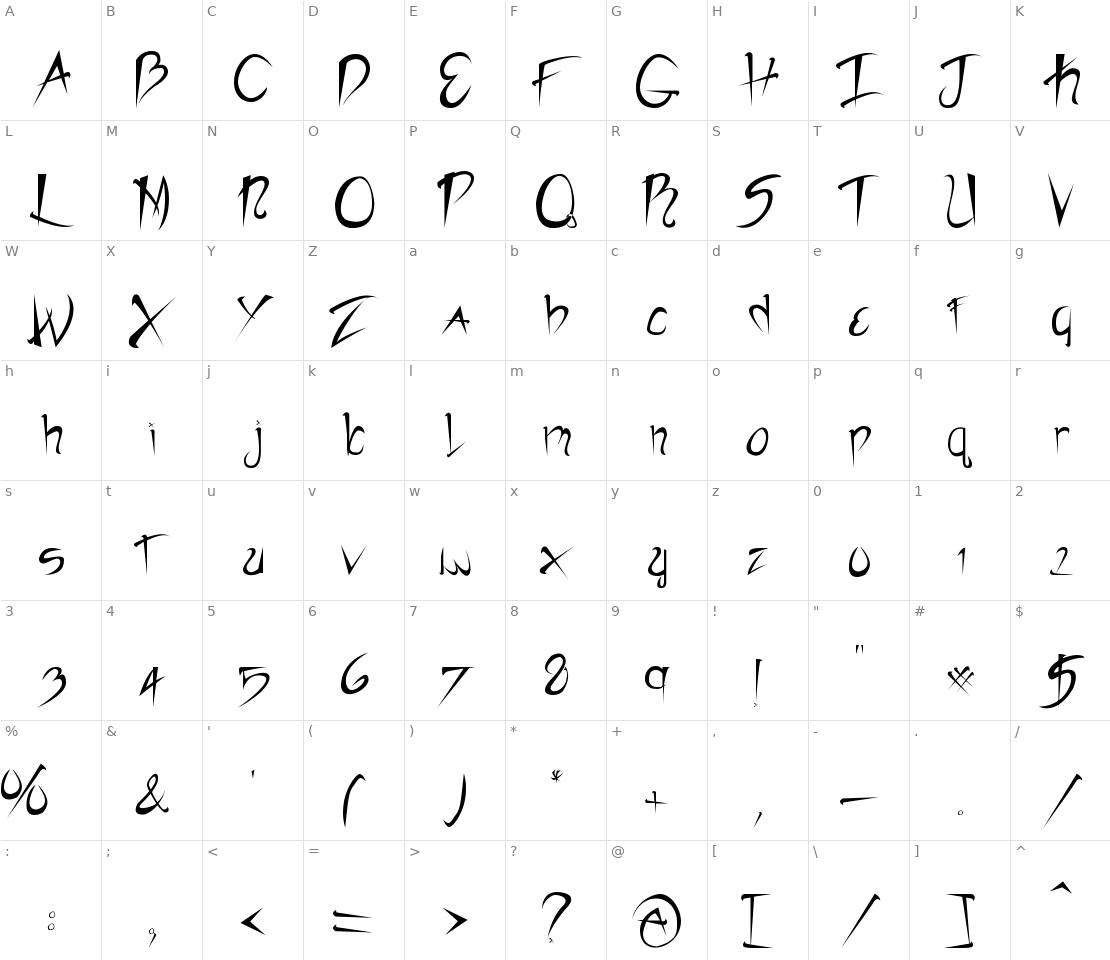
Rebel Slasher
Rebel Slasher is a raw, slashed display face with jagged, angular letterforms that look carved in a hurry with something sharp. The irregular, handwritten quality gives it a genuinely unhinged energy, landing right at the intersection of punk flyers and horror movie titles. Built for headlines and short bursts of text where aggression is the whole point.